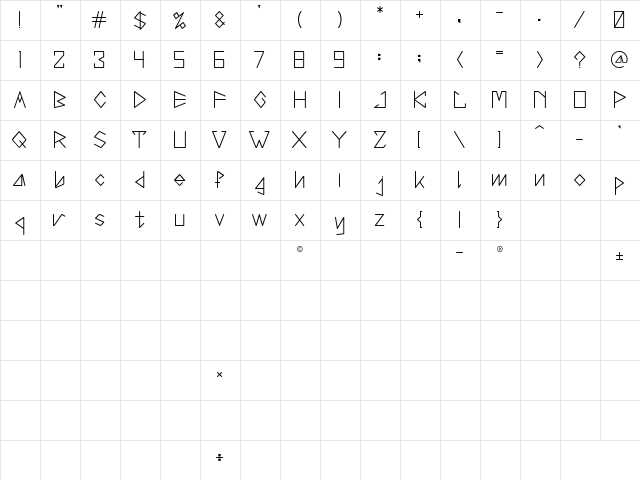
Brigita Regular
| Designer | Estiko Priyanto |
Design Context for Brigita Typeface
Brigita is a composed and adaptable typeface that performs quietly and consistently across a wide range of design contexts.